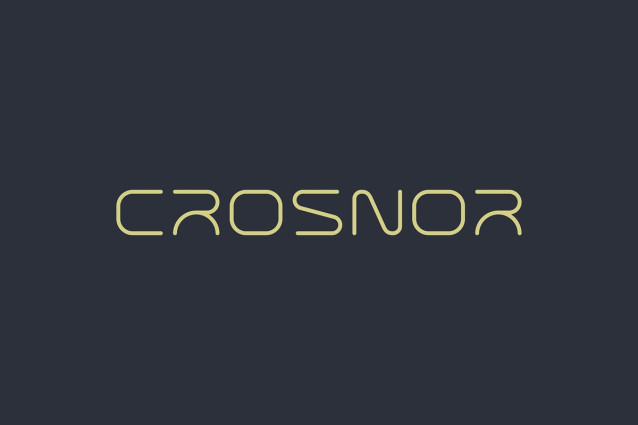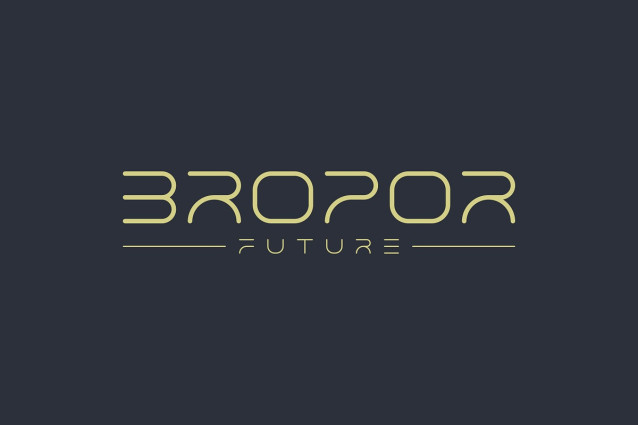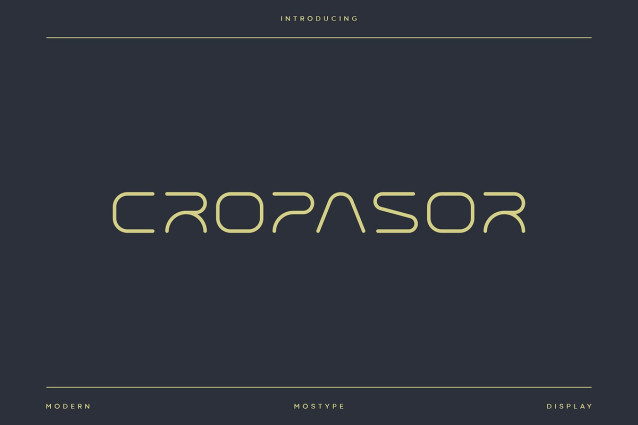
Cropasor Font
Cropasor Font is a unique all-caps based font that will make your design look futuristic and modern, using a simple design to make it look clean and elegant. You can use this font for any purpose, especially for creating future designs. This font would be great for logo designs, posters, magazines, headlines and many other designs, it’s a very sophisticated font that will make your designs stand out!